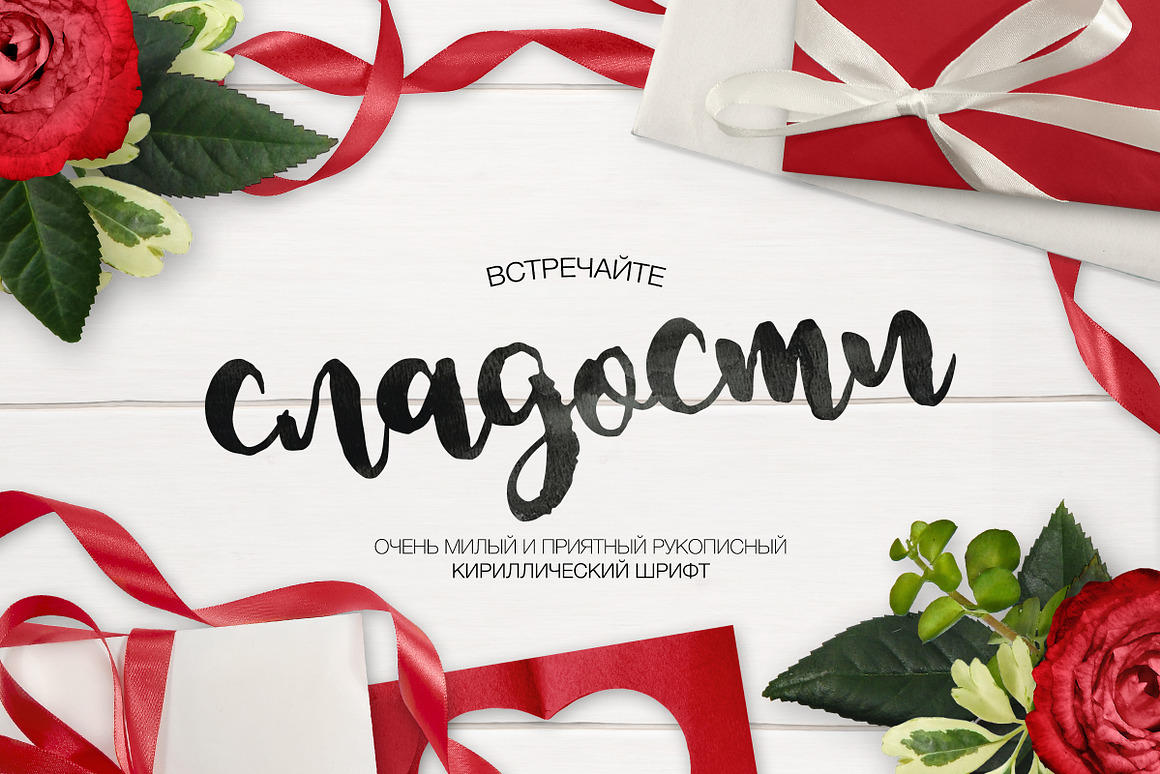
Sladosti CYRYLLIC Font
Sladosti CYRYLLIC Font is perfect for Russian confectionery branding, Eastern European bakery signage, Slavic candy packaging, traditional pastry shop menus, multicultural dessert marketing, international food festivals, heritage sweets advertising, and ethnic cuisine communications.
What makes Sladosti CYRYLLIC Font exciting is its sweet cultural authenticity that captures the heartwarming tradition of Eastern European confectionery and family recipes. The font features delightful letterforms with handcrafted curves and traditional character that evoke grandmother's kitchen, honey cakes, and the cherished sweetness of Slavic culinary heritage. Its distinctive Cyrillic styling and confectionery appeal communicate warmth, tradition, and artisanal craftsmanship, making every message feel infused with the love and cultural pride of traditional Eastern European baking.
The Sladosti CYRYLLIC Font family includes regular weight with comprehensive Cyrillic character set, numerals, punctuation marks, and special characters. Premium versions often feature decorative alternates and traditional elements that enhance the sweet, cultural aesthetic perfect for confectionery and heritage food applications.
The traditional character of Sladosti CYRYLLIC Font makes it particularly effective for ethnic bakeries, cultural restaurants, and heritage food importers. Its excellent readability ensures recipe descriptions and cultural information remain clear while maintaining the distinctive Slavic aesthetic that appeals to customers seeking authentic Eastern European culinary experiences.
Cultural food marketers appreciate how Sladosti CYRYLLIC Font effortlessly conveys tradition and cultural sweetness. The font's handcrafted proportions and heritage details create appetizing brand materials that establish connections with audiences who value cultural authenticity, traditional recipes, and the sweet comfort of Eastern European confectionery.
The versatile cultural appeal of this typeface extends to cultural centers, heritage festivals, and international food markets where Slavic authenticity enhances cultural credibility. Sladosti CYRYLLIC Font Free Download provides creative professionals with a valuable tool for developing memorable, culturally-rich designs that resonate with audiences who embrace Eastern European culture, traditional sweets, and the heartwarming sweetness of Slavic culinary heritage in their dining and cultural experiences.